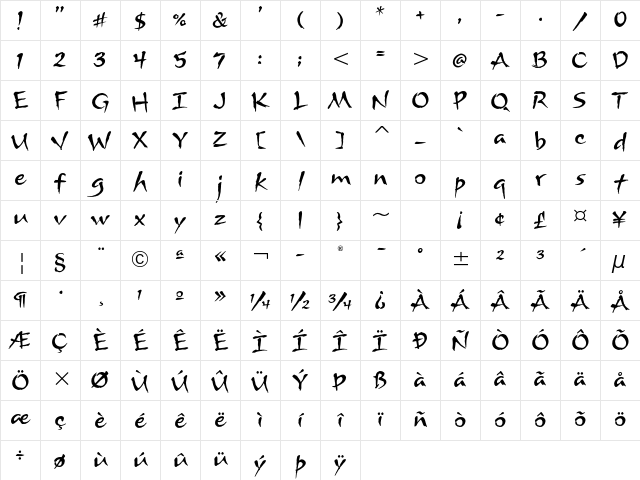
Arnova ITC Std Regular Free Font
Arnova ITC Std Regular
Designer: Genevieve Cerasoli
Design Context for Arnova ITC Std
Arnova ITC Std is a composed and adaptable typeface that performs quietly and consistently across a wide range of design contexts.